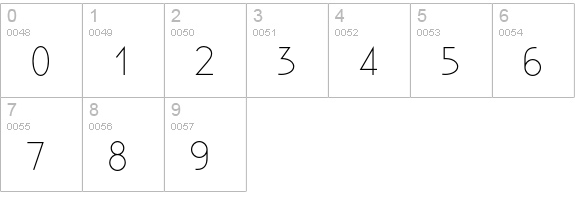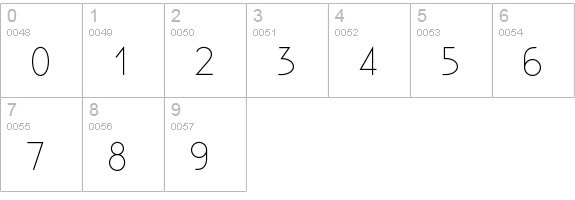
Existence Unicase Light Font Details
Existence Unicase Light is a refined, elegant variant in the Existence typeface family \xE2\x80\x94 well suited to elegant body text, refined sub-headings, and luxury branding.
Existence Unicase Light font is a modern and sleek typeface that exudes elegance and sophistication. Its clean lines and unique design make it perfect for a variety of design projects, from branding to editorial layouts. The light weight of the font adds a touch of delicacy and refinement to any text. One of the best things about Existence Unicase Light font is that it is available for free download at FontsMarket.com. This means that you can easily access this beautiful typeface and use it in your projects without any cost. Whether you are a designer, a student, or just someone looking to enhance their creations with a stylish font, Existence Unicase Light is a great choice. With its versatility and timeless appeal, Existence Unicase Light font is sure to become a staple in your font library. Download it for free today and elevate your designs with this stunning typeface.